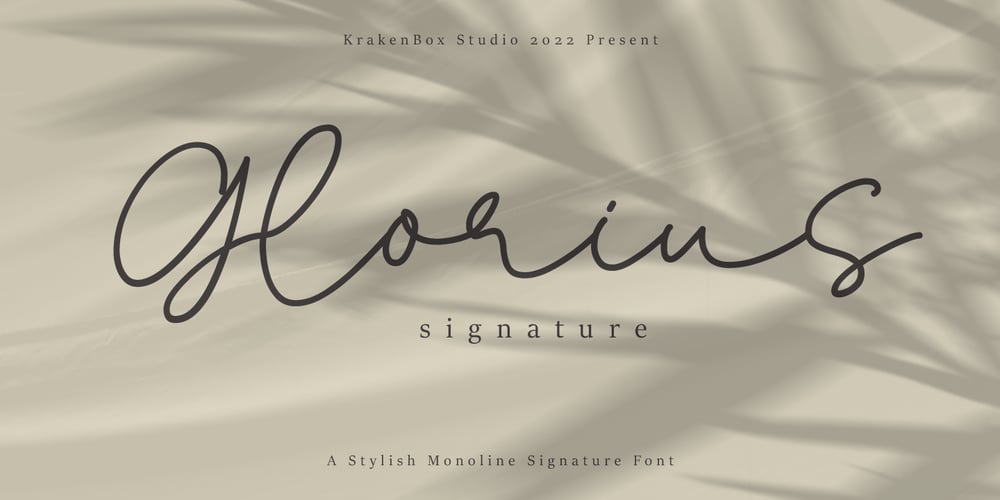
Glorius Signature Font Family was designed by Yahdi Kumala and published by Krakenbox Studio. Glorius Signature contains 1 styles and family package options. Glorius is a fashionable sophisticated signature-style script with its own unique curves and an elegant inky flow. Its elegant, classy, and modern look will make your designs look lovely.